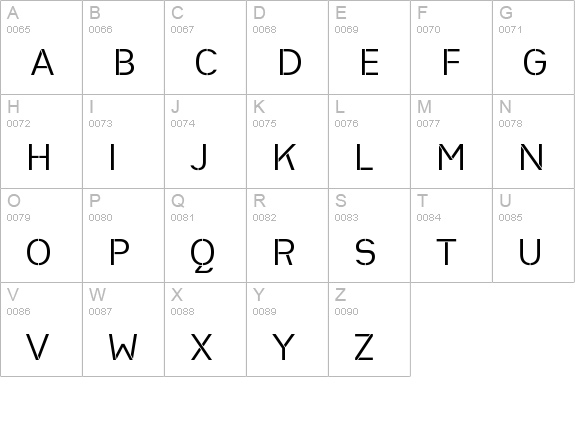
Heimat Stencil Regular is the standard, neutral variant in the Heimat typeface family \xE2\x80\x94 well suited to general body text, paragraphs, and standard typographic work.
Heimat Stencil Regular font is a versatile and modern typeface that brings a unique touch to your designs. This font features a sleek and stylish stencil design that is perfect for a wide range of projects, from posters to branding to packaging. The clean lines and bold characters of Heimat Stencil Regular make it a standout choice for anyone looking to make a statement with their typography. What's even better is that Heimat Stencil Regular font is available for free download at FontsMarket.com. This means you can easily access this high-quality font without any cost, making it a valuable addition to your font library. Don't miss out on the opportunity to elevate your designs with Heimat Stencil Regular font, now available for free at FontsMarket.com.